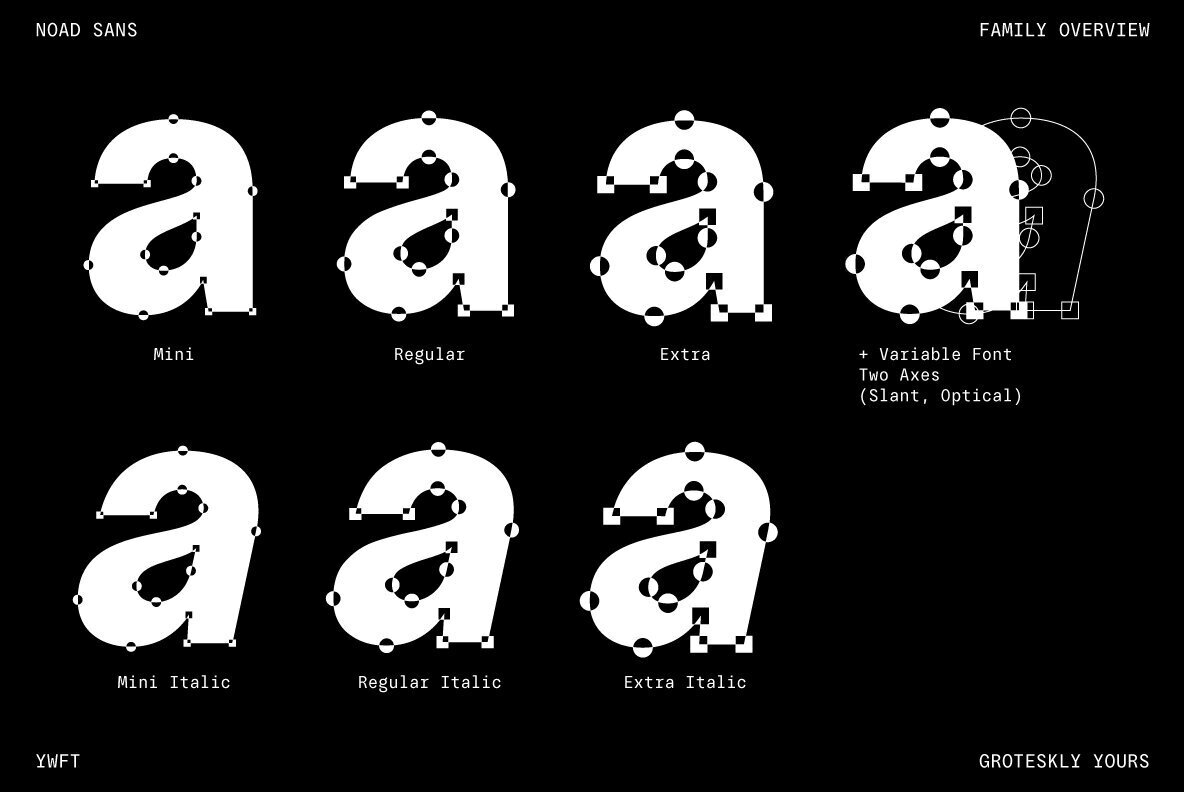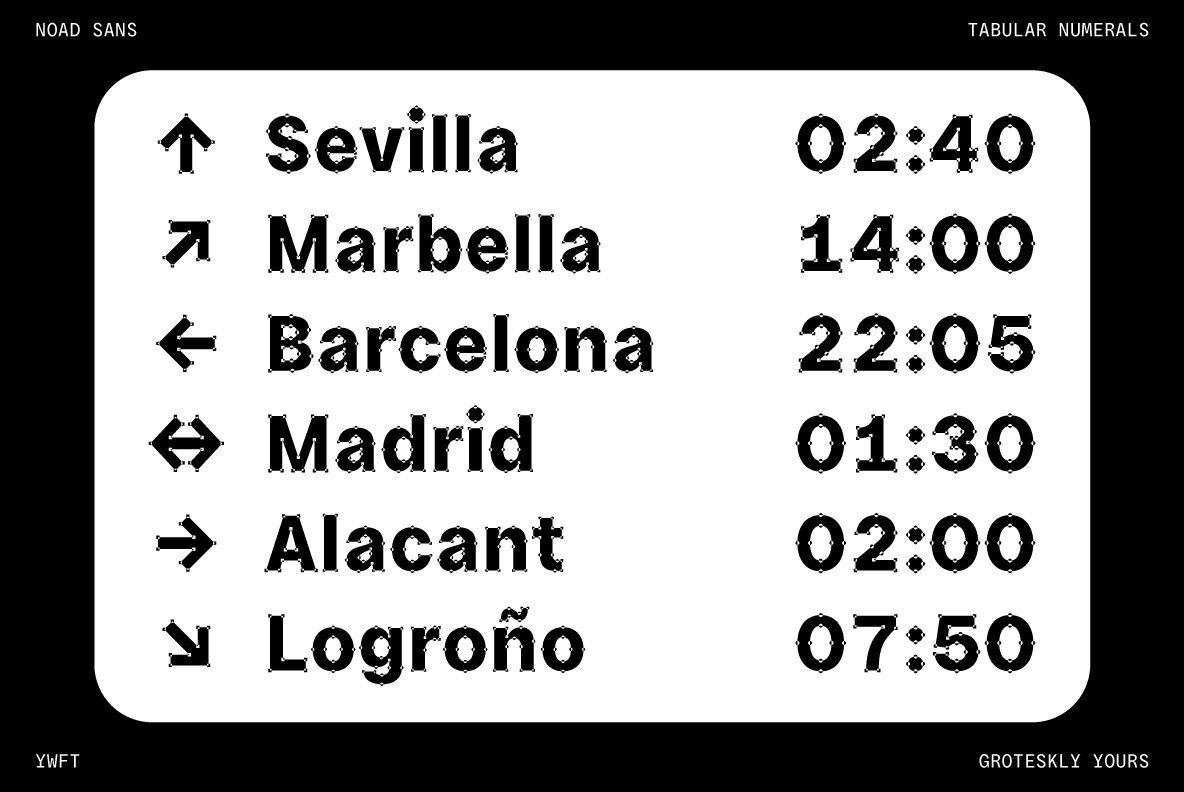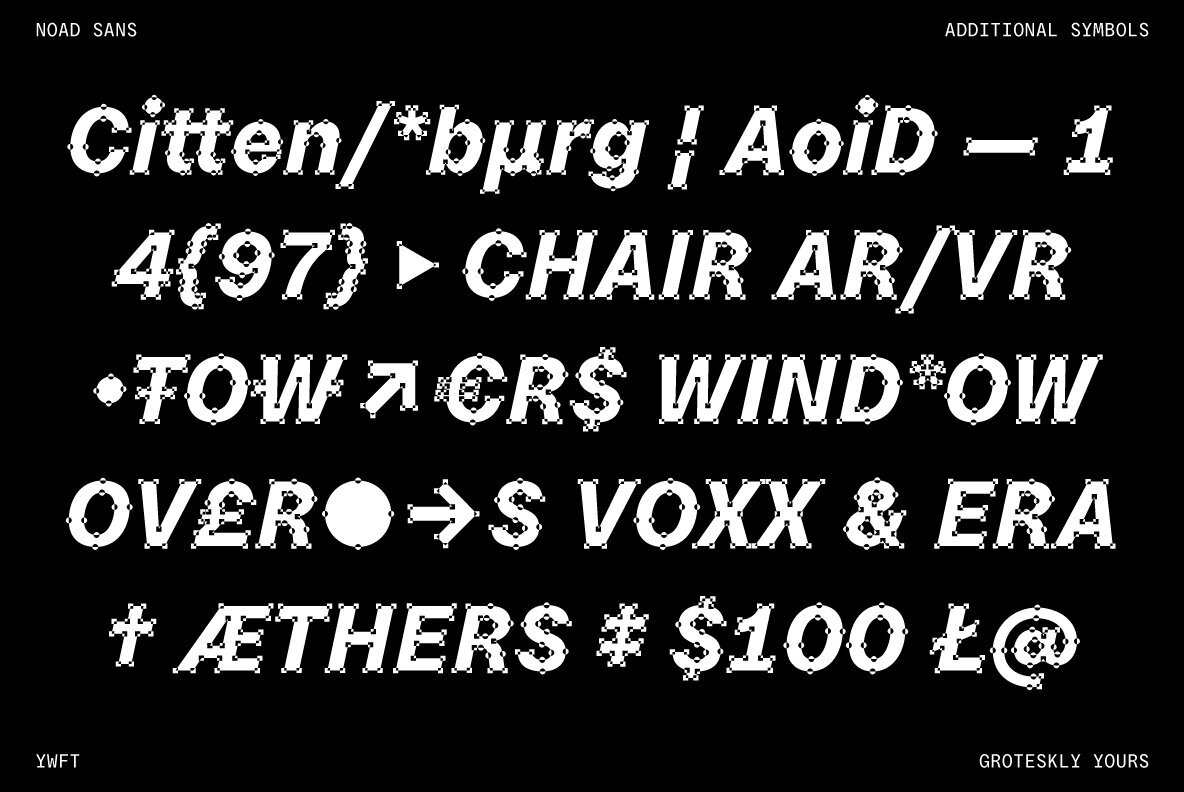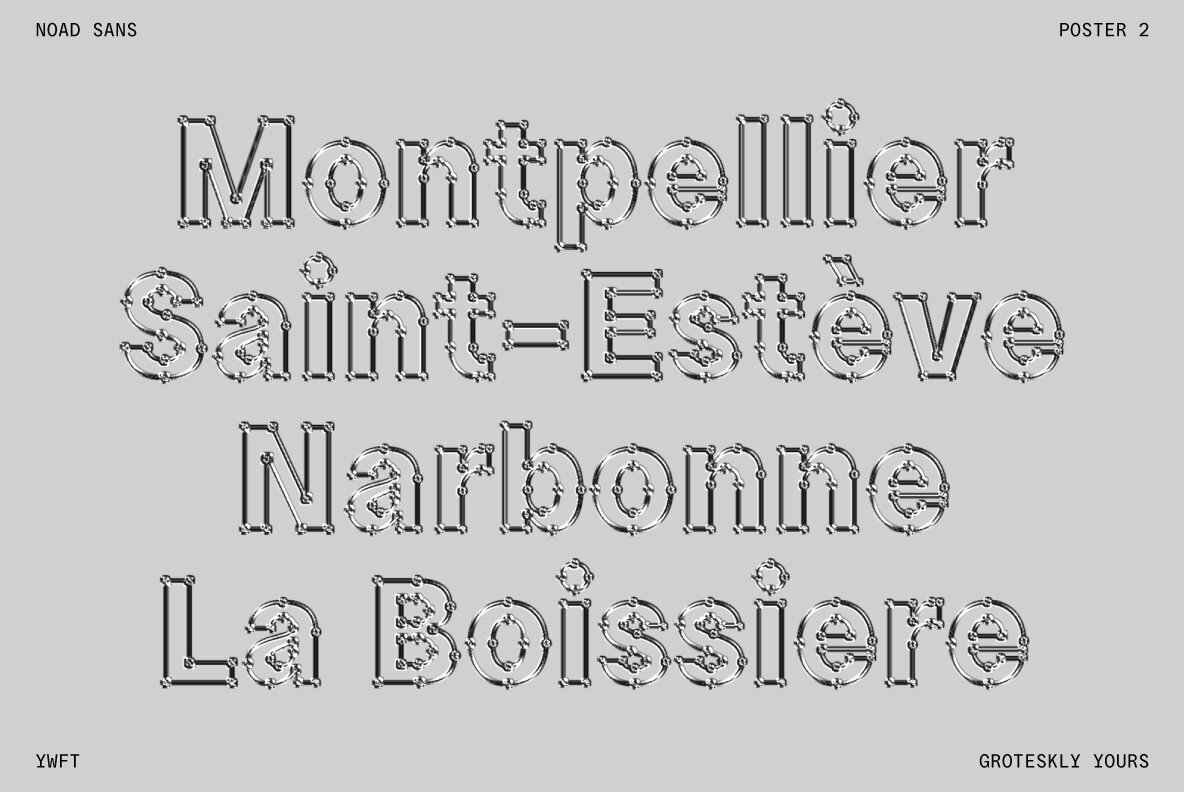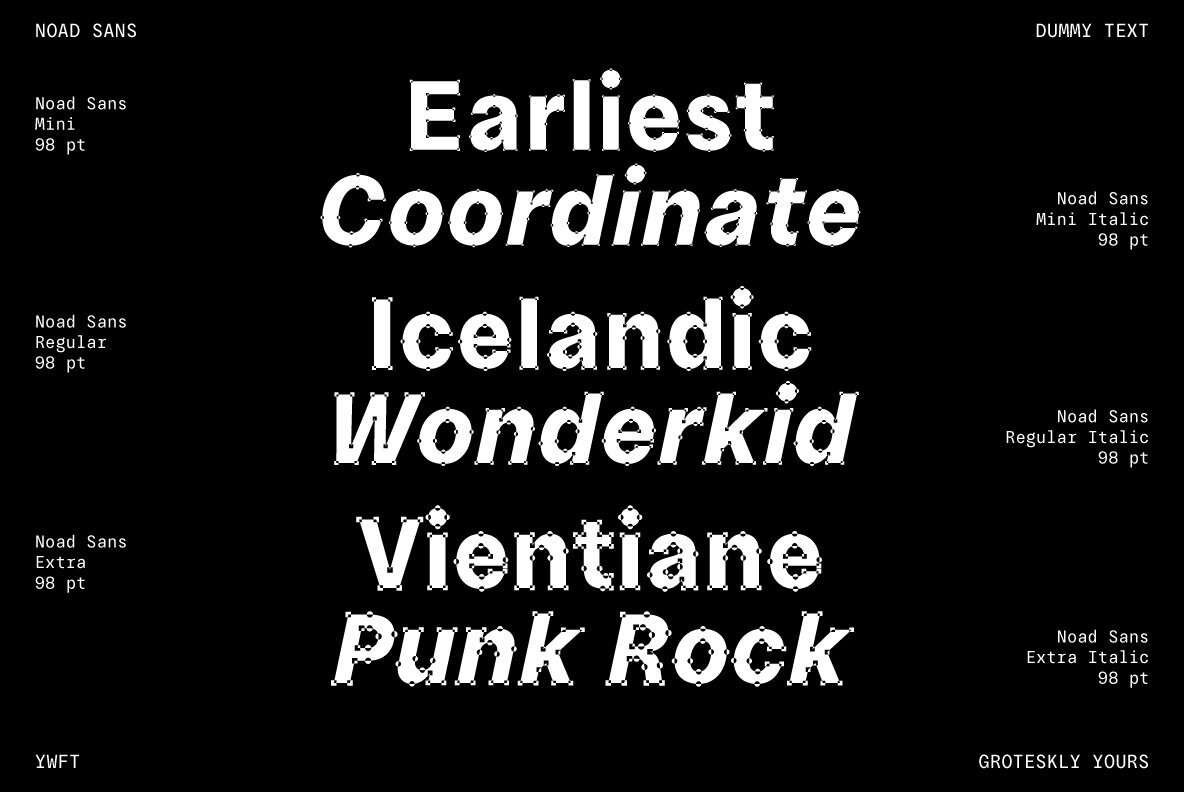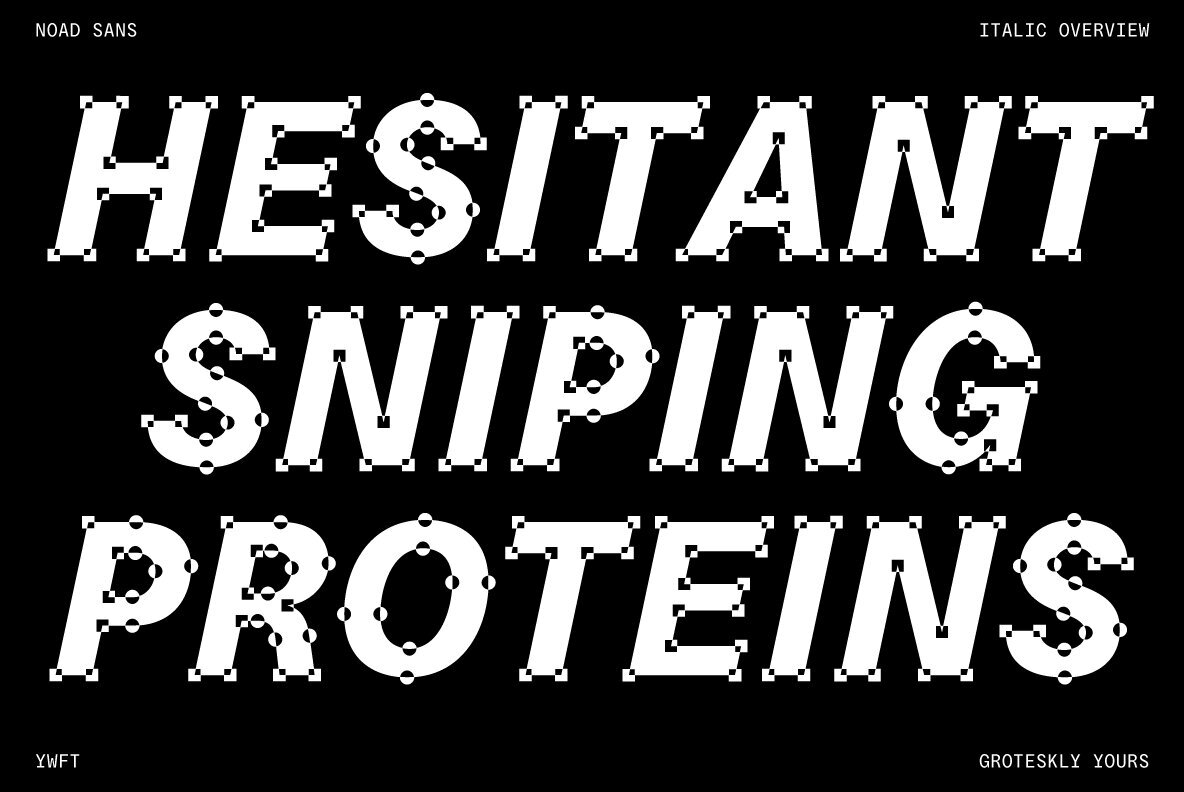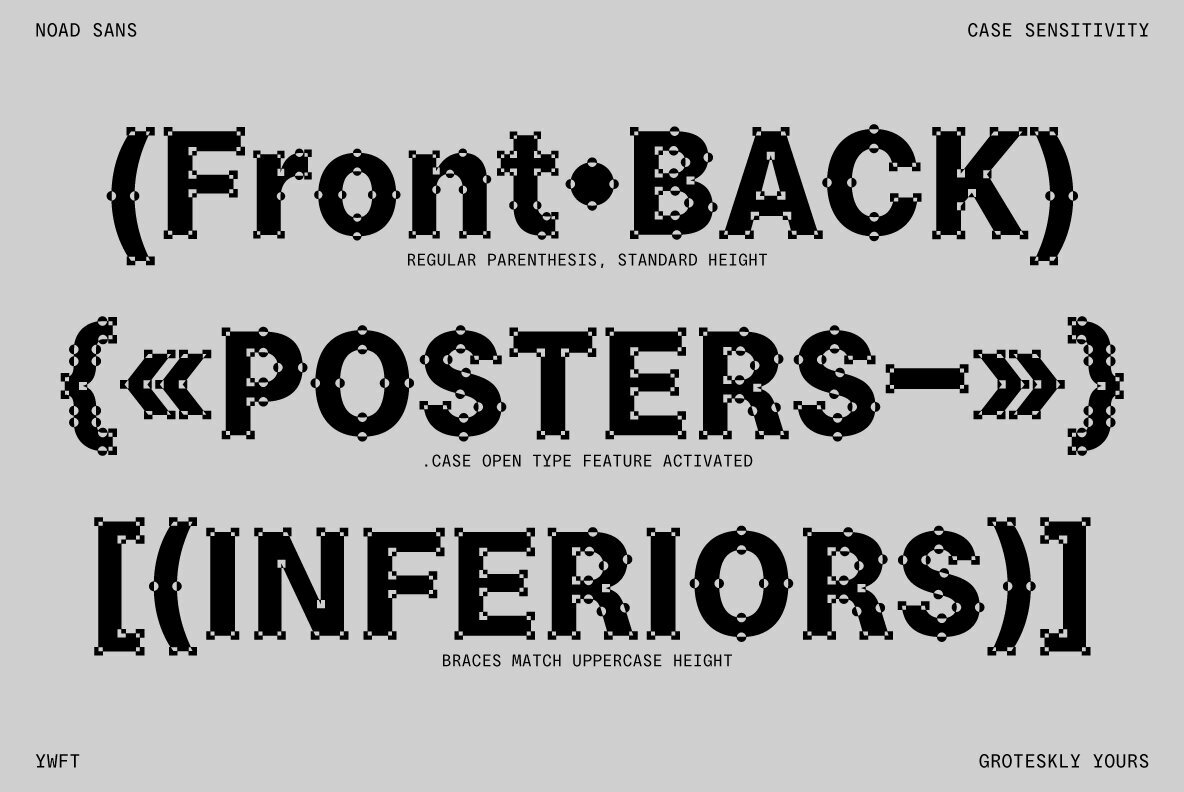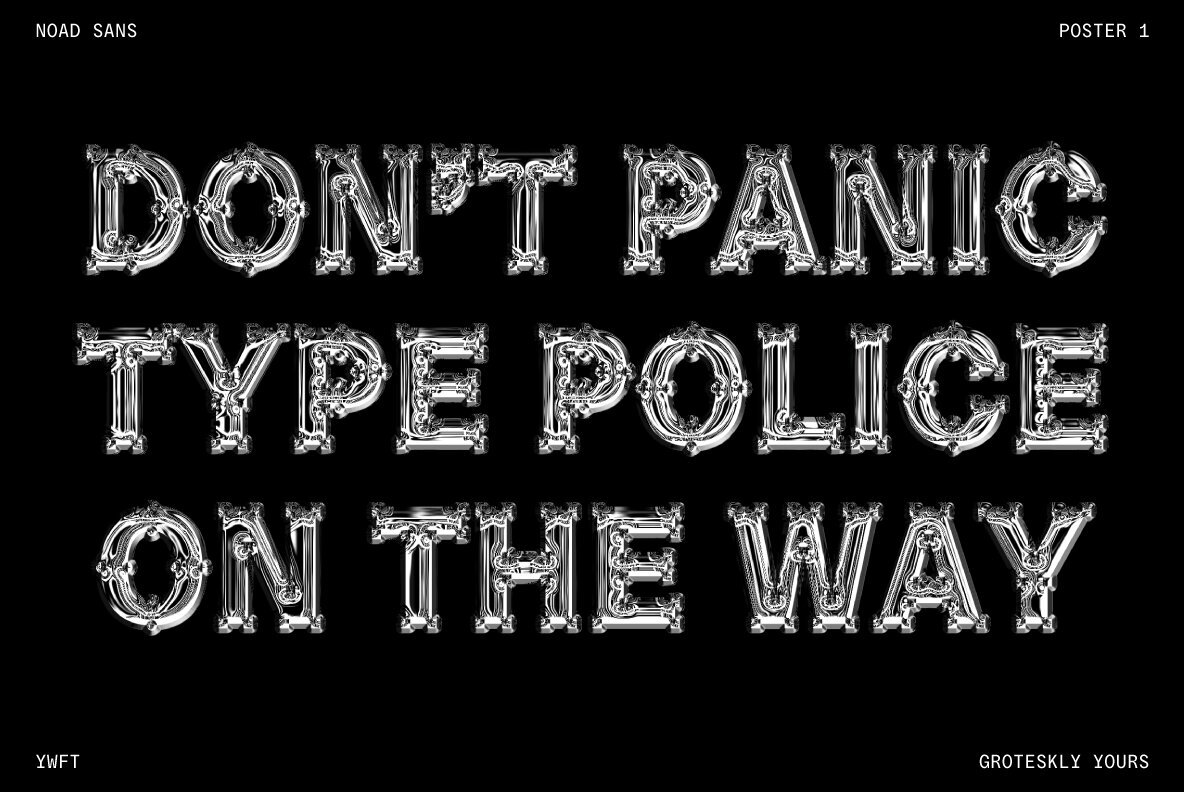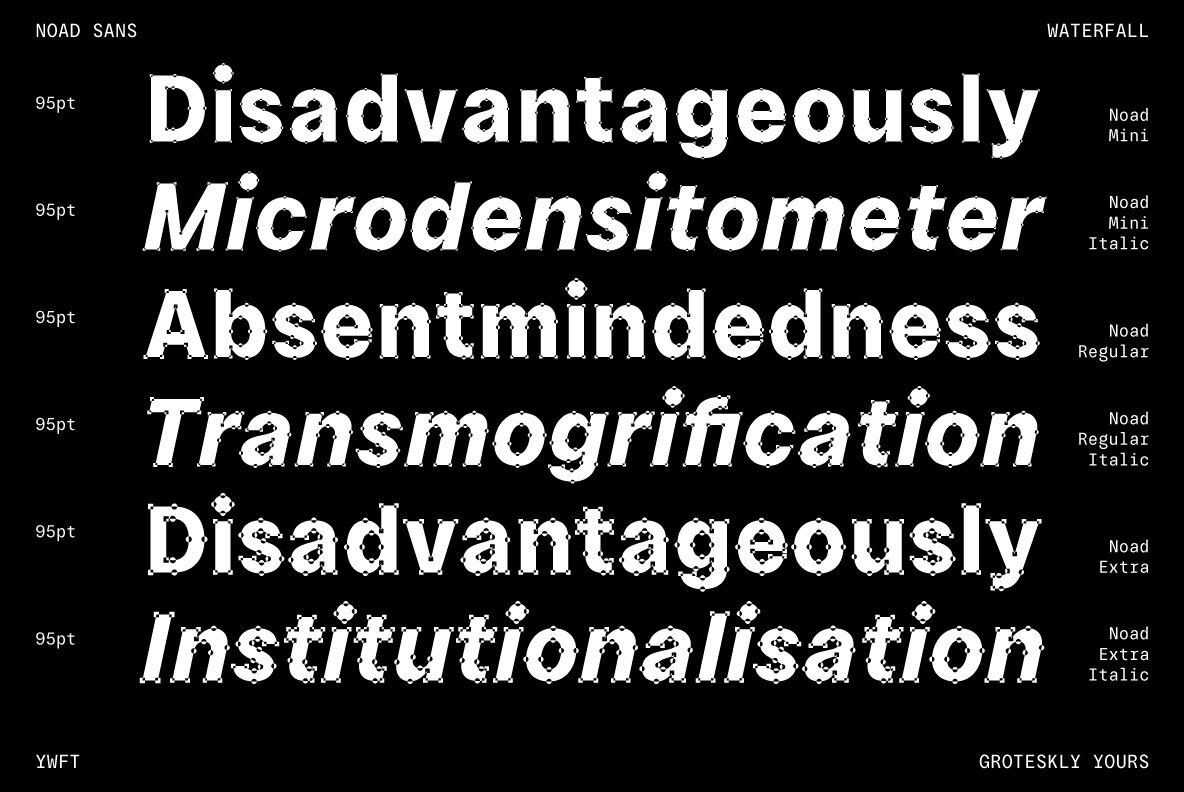
Noad Sans Font
Noad Sans is an experimental sans serif typeface with a strong character and some very unique visual features. At the core of Noad Sans is a sturdy sans serif with closed apertures and fairly simple letterforms. The defining feature of Noad Sans, however, is its visualised nodes: all control points of Bézier curves in each of the fonts in the family are intentionally visualised. The effect of this feature is largely defined by the usage: in titles and larger bodies of text, the visualised nodes stand out and create a rhythmic pattern of their own. In smaller sizes, the sans serif base of the font becomes more prominent and the nodes create a visual fuzz. Noad Sans comes in 6 styles and as a Variable Font with two axes–Optical Size and Slant. The size of each node can be changed from the smallest (Mini and Mini Italic) to the largest (Extra and Extra Italic). Variable Font technology allows you to fine tune the size of the nodes and the slant angle, so that your version of Noad Sans can be truly unique. Noad Sans has a large character set of 570+ glyphs, covering the vast majority of Latin based languages. In addition to that there are dozens of special characters, punctuation, numbers, and symbols. Noad Sans is equipped with a number of useful OpenType features, such as Case-Sensitive Punctuation, Stylistic Alternates, Ligatures, Fractions and many more. Noad Sans began as an experimental project, and during its development the spirit of experimentation was at the heart of the project. Thanks to the unique nature of the typeface, it can feel at home in a variety of settings: from web development, graphic and product design to more novel uses like 3D and NFTs. Noad Sans type family includes 6 static fonts (Mini, Mini Italic, Regular, Regular Italic, Extra and Extra Italic) and one variable font.